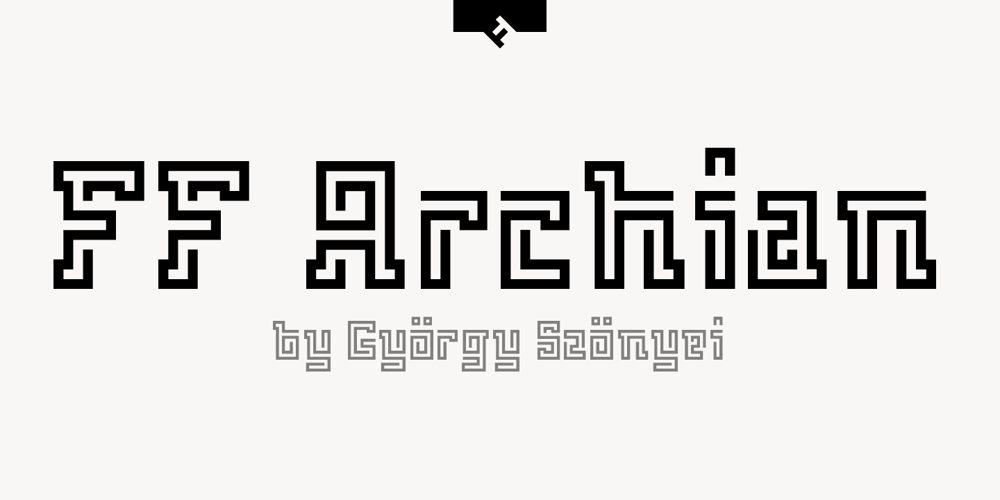
FF Archian Font Family was designed by György Szönyei and published by FontFont. FF Archian contains 11 styles and family package options. Hungarian type designer György Szönyei created this display FontFont in 1999 and extended it in 2010. The family has 11 weights, and is ideally suited for advertising and packaging, logo, branding and creative industries, music and nightlife as well as sports. FF Archian provides advanced typographical support with features such as ligatures, alternate characters, and stylistic alternates. It comes with proportional lining and tabular lining figures. As well as Latin-based languages, Archian Stencil also supports the Cyrillic writing system.